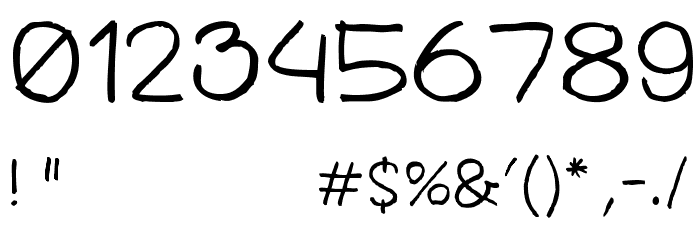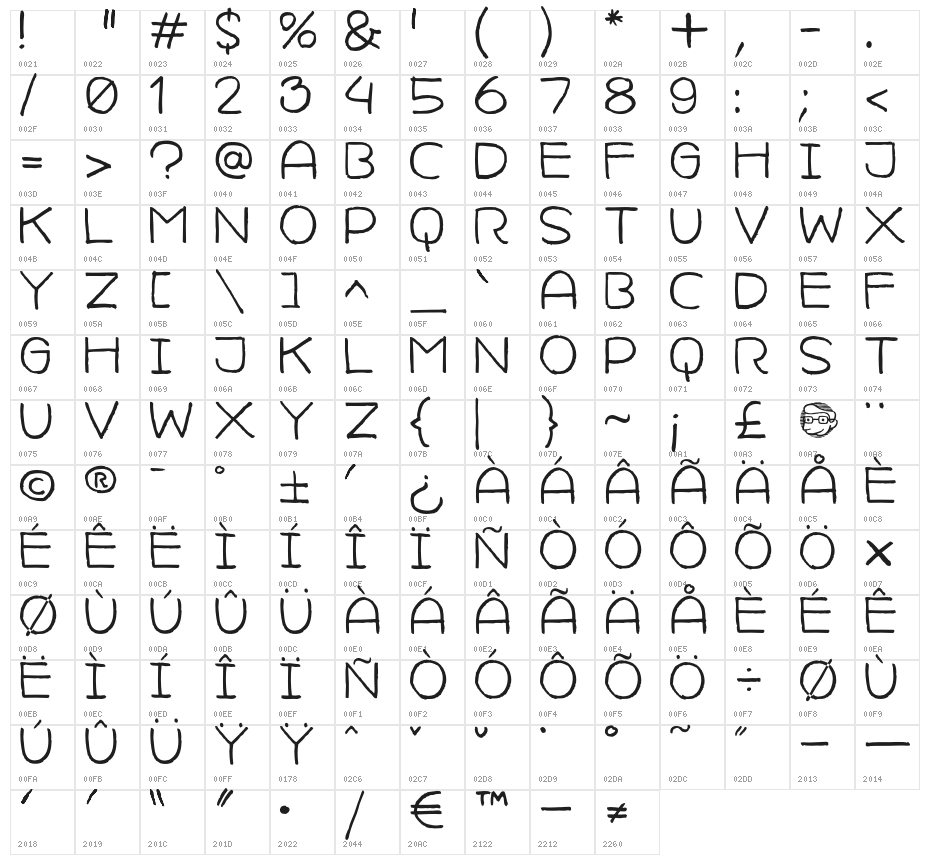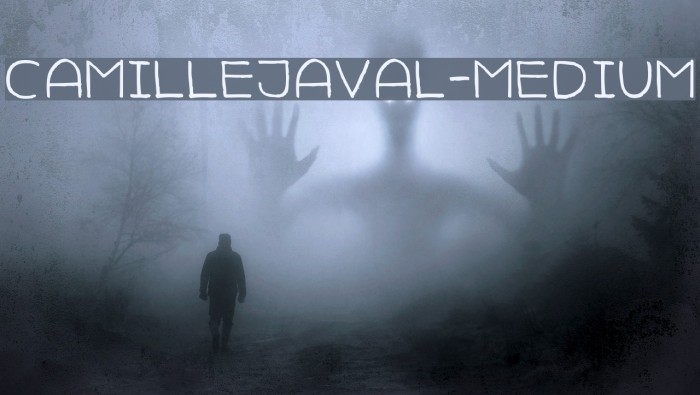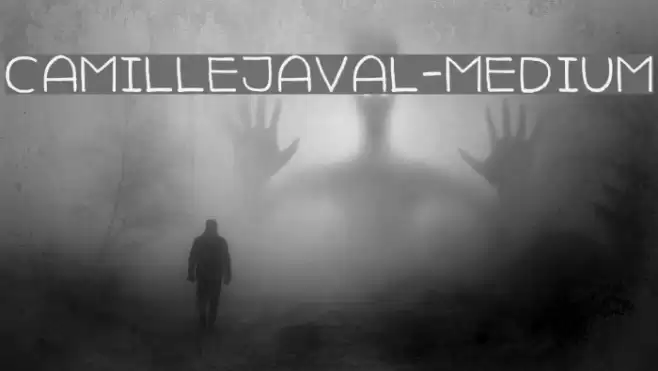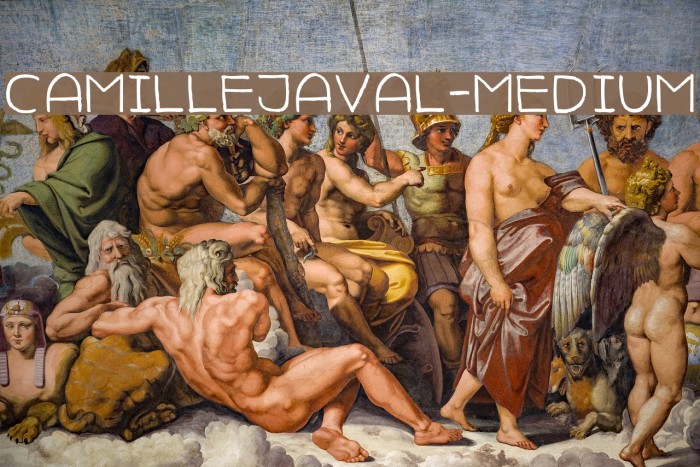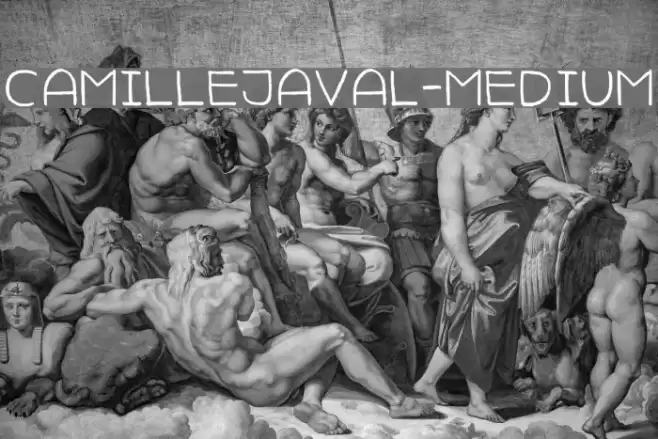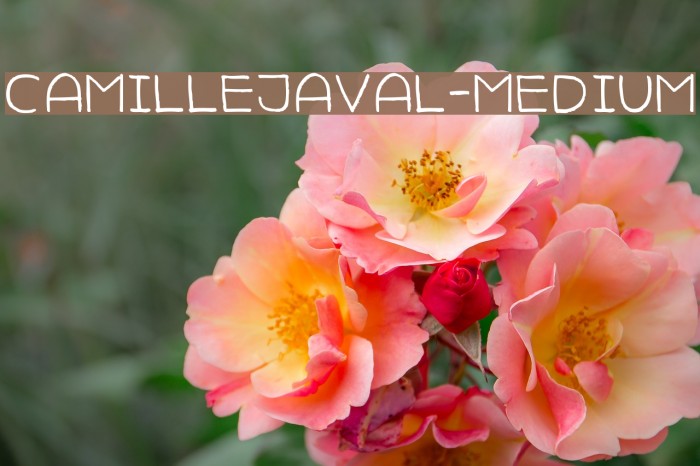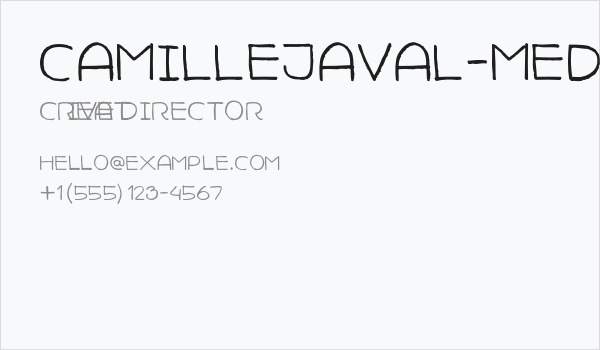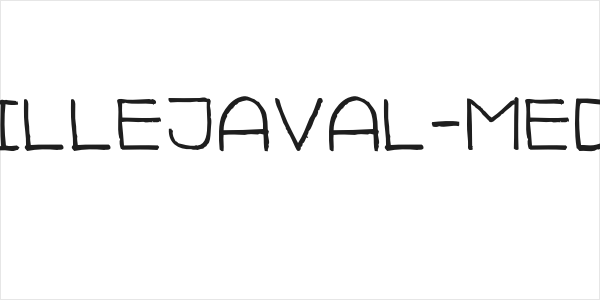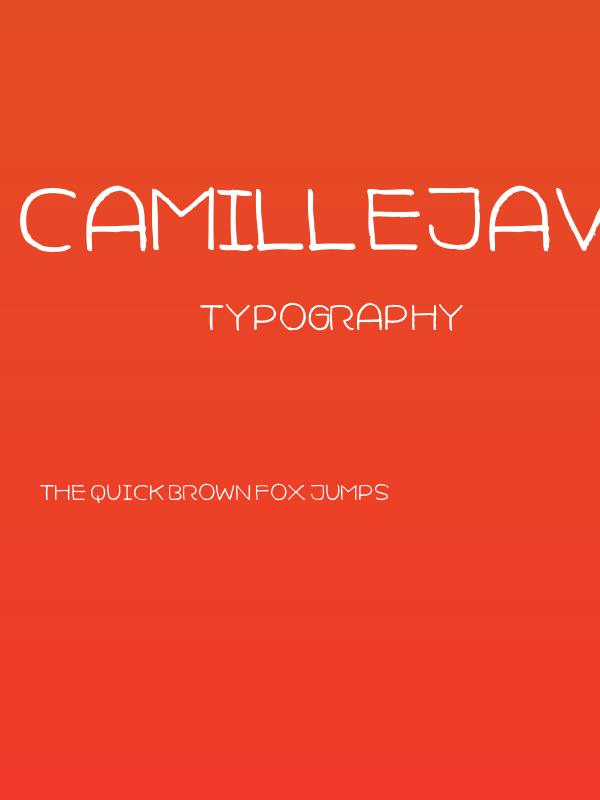
CamilleJaval-Medium Font
CamilleJaval-Medium Description
This font features a playful and casual handwritten style, characterized by its uneven strokes and slightly irregular letterforms. The uppercase and lowercase letters maintain a consistent flow, with rounded edges and a natural, organic feel. The numbers and special characters follow the same informal aesthetic, making it suitable for projects that require a personal touch. Its unique charm lies in its imperfect lines, which add a sense of authenticity and warmth. The font's overall appearance is approachable and friendly, making it ideal for creative and informal applications.
| Use Case | Headlines, Logos, Informal text |
| Proposed Projects | Ideal for greeting cards, personal blogs, children's books, and creative branding. |